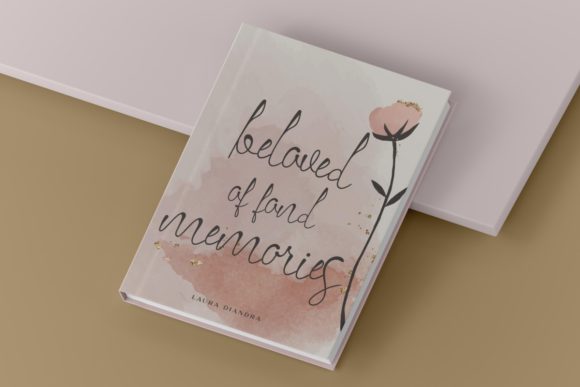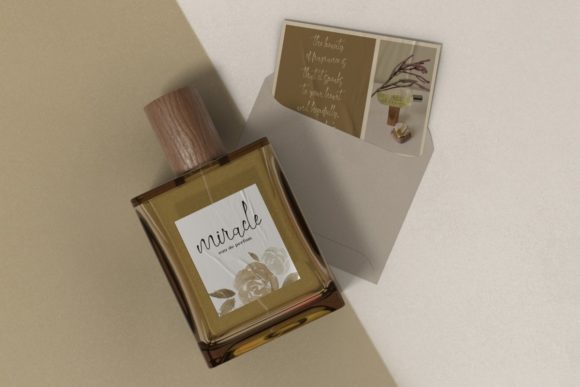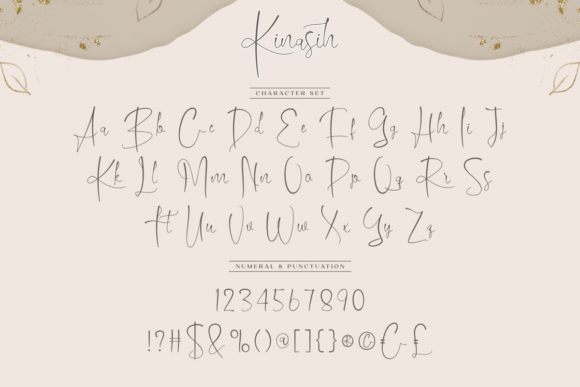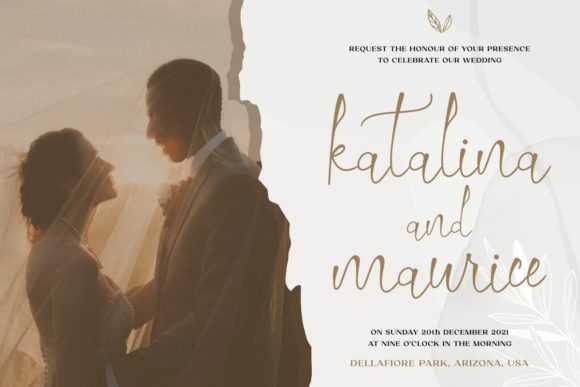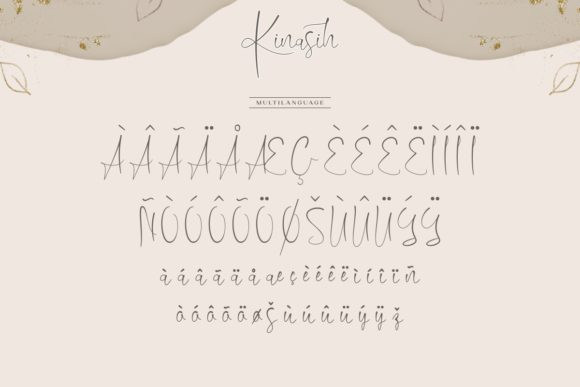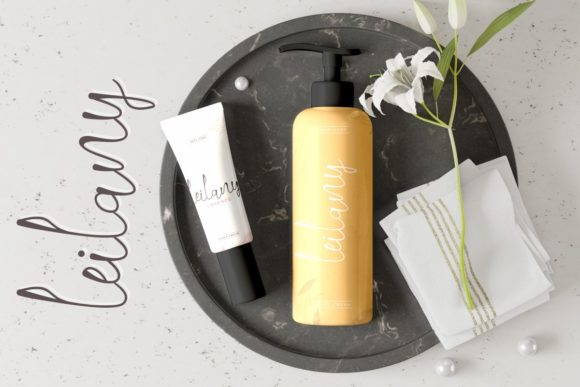
Introduction to Kinasih Font Font
Fonts play a crucial role in design, and the Kinasih Font font is a typeface that brings both character and versatility to any project. Whether you’re working on a branding project, a website, or a print design, the Kinasih Font font offers a unique style that can elevate your work.
Kinasih is a natural script font perfect for many different projects such as logos & branding, invitation, label, packaging, wedding designs, special events, and many more.
Lovely and stylish, this font exudes elegance and class It was specially crafted for those who need a beautiful and refreshing look to their designs.
Key Features of Kinasih Font Font
Why Choose Kinasih Font Font?
The Kinasih Font font is more than just a typeface – it’s a design tool that helps you communicate your message with style and clarity. Its unique character set and versatile design make it suitable for a wide range of applications, from elegant invitations to bold headlines.
With its carefully crafted letterforms and balanced proportions, the Kinasih Font font ensures readability and visual appeal across all mediums.
What makes Kinasih Font font special?
The Kinasih Font font stands out with its unique design, exceptional readability, and versatility across various design applications.